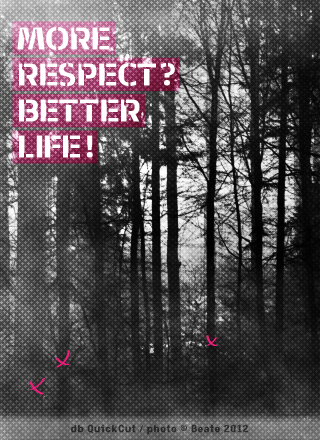
db QuickCut
Stencil
Sans Serif
to start again ! (Sorry, but db QuickCut v.1 was total damaged…)
Absolutely love it. The little extra cut spaces (Looking like shadows) make this very distinctive.
Excellent! Ink-trappy/stencilly/lovely. 10/10
Looking to be the comp's winner! Excellent! 10/10
Stunning. 10\10. Good Luck with the comp! :)
A silhouette very interesting